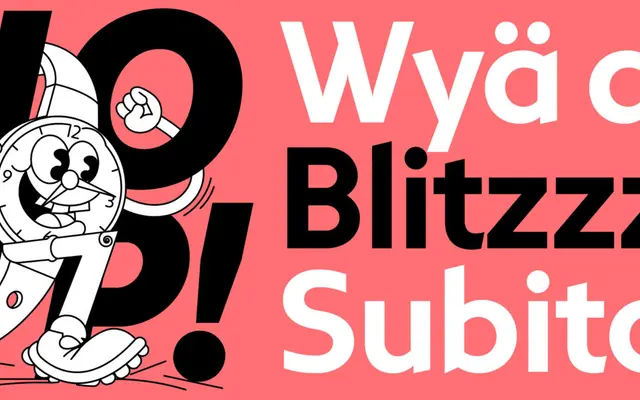
Arosa
Nouvelle Noire · Edgar Walthert · 2024
A humanist sans-serif by Edgar Walthert that reinterprets the bold, hand-drawn lettering of early 20th-century Swiss tourism posters into a contemporary text family.
Rather than reviving a specific historical face, Walthert drew from the pragmatic expressiveness of poster artists such as Hugo Laubi, Karl Bickel and Carl Böckli, distilling their energy into a constructed humanist sans with nine weights and matching italics. The text version prioritises legibility, with small caps given particular attention as a distinguishing typographic feature. A display and script variant are planned to complete the super family in later releases.
Walthert describes NN Arosa as a Swiss constructed humanist sans serif, drawing from the hand-drawn lettering of early 20th-century Swiss tourism poster artists rather than calligraphic tradition.